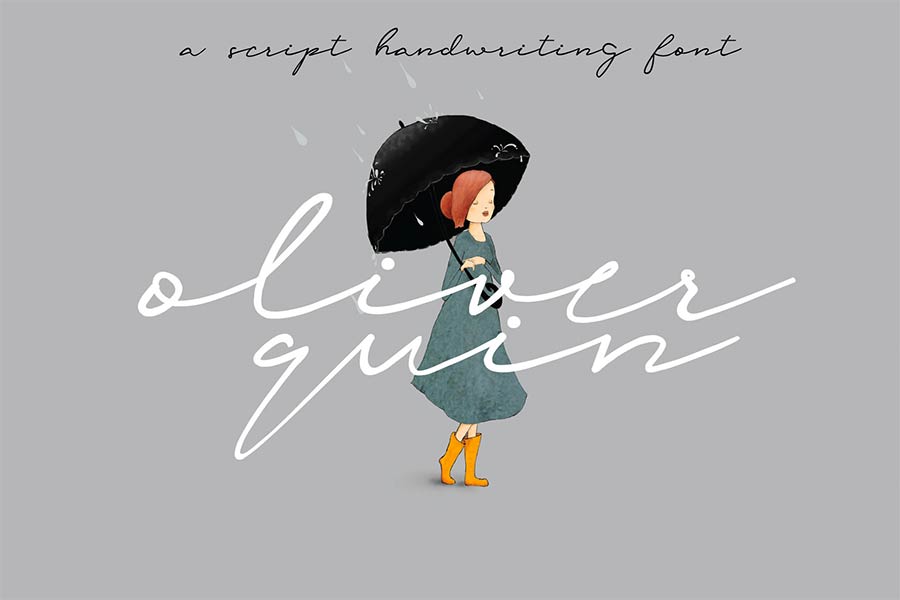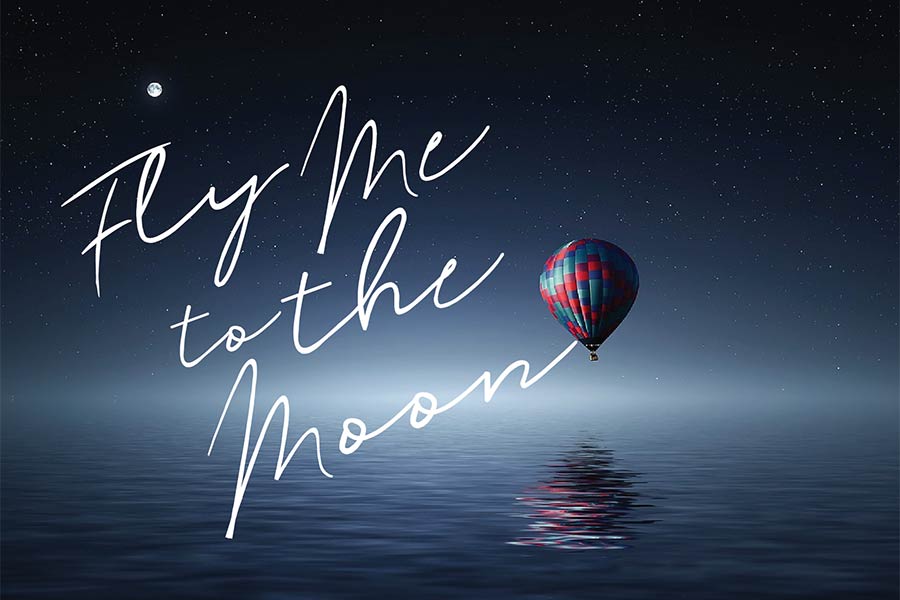
Oliver Quin is a casual and elegant handwriting script font that is free to download. What I like about this font is that it has a smooth flow of character strokes from one to another, it almost look like a hand signature style.
It can be a great choice for decorative type element, but maybe not so much for text info that is meant for careful reading due to its low readability. You can download this font for personal use only.